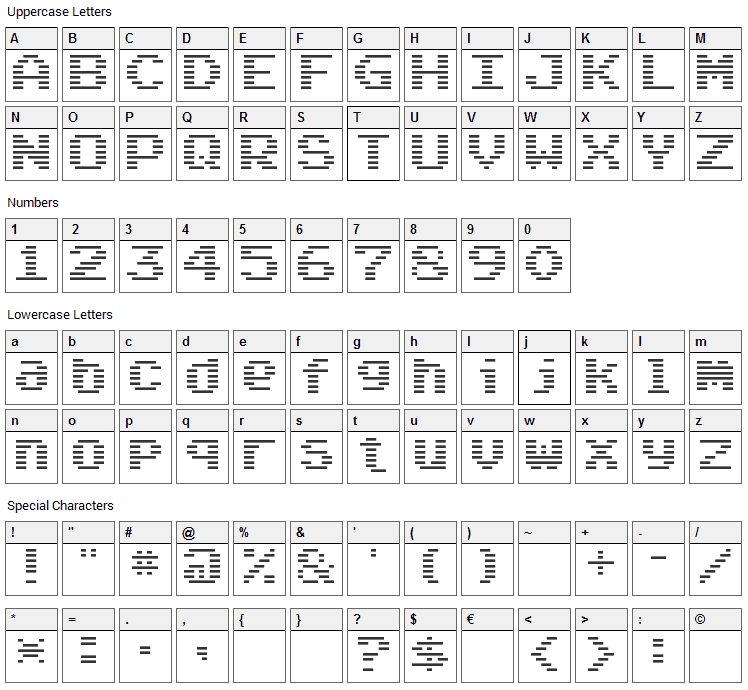
Arcade Classic Font
Font Name:Arcade Classic
Developer:Koen Hachmang
Category:Fancy > Striped
Arcade Classic has a nice blocky retro 80's scan line feel to it. Aracade was created by Glitch.